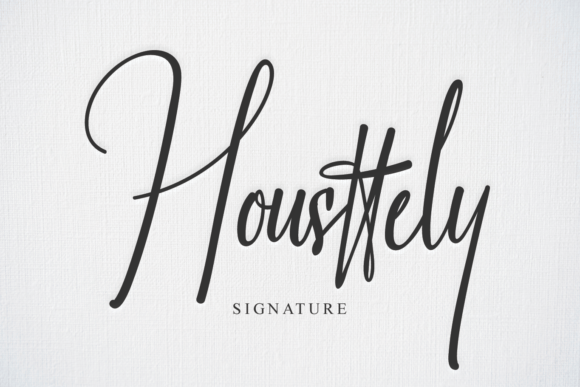
Journey through a world of elegance and charm with Housttely Font, a captivating script font designed to ignite your creativity. Inspired by the allure of calligraphy, this font boasts characters that dance along the baseline, leaving a trail of enchantment in their wake. Its free-flowing strokes, reminiscent of a gentle breeze, add a touch of whimsy and sophistication to any project.
Housttely Font is a true masterpiece, meticulously crafted to cater to the needs of discerning designers and crafters. Its graceful curves and playful nature make it the perfect choice for adding a touch of romance and sweetness to your creations. Whether you're designing wedding invitations, greeting cards, social media posts, or Cricut projects, Housttely Font will elevate your designs and make them truly unforgettable.
Experience the versatility of Housttely Font as it effortlessly complements a wide range of design styles. Its delicate lines and elegant flourishes bring a touch of timeless beauty to logos, branding, and marketing materials. Unleash your creativity and explore the endless possibilities that await with Housttely Font, the ultimate choice for adding a touch of enchantment to your designs.
Behind the Ink, the creative force behind Housttely Font, has poured their passion and expertise into this exceptional font. With years of experience in the world of typography, they have captured the essence of romance and charm, creating a font that is both visually stunning and highly functional. Trust Housttely Font to add a touch of magic to your creative endeavors and leave a lasting impression on your audience.